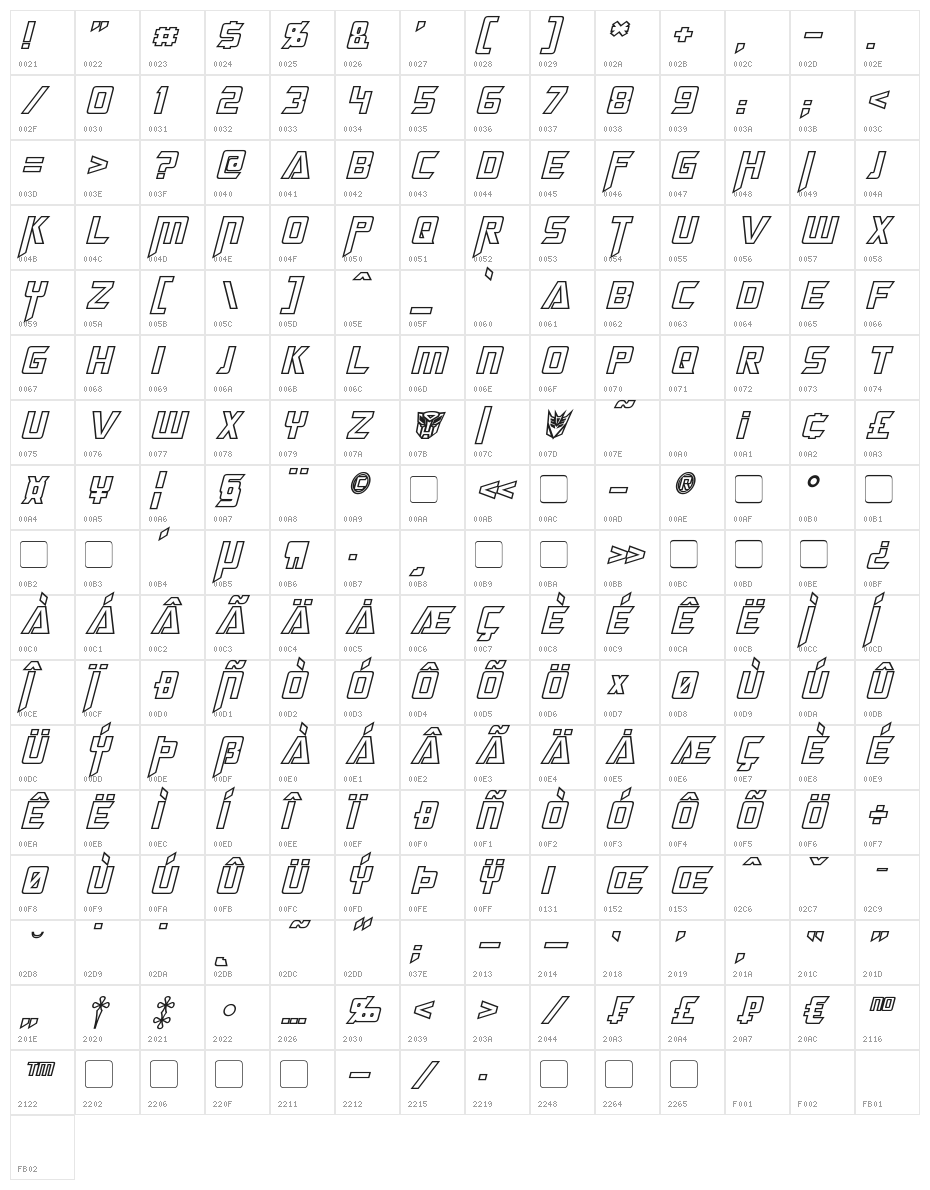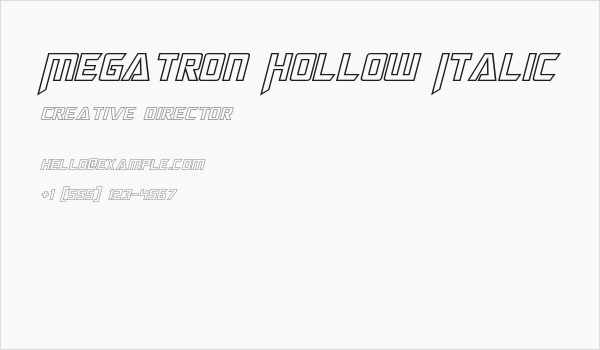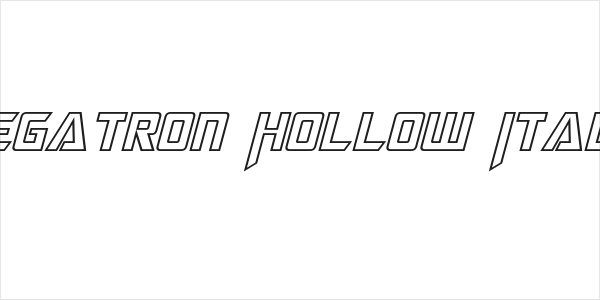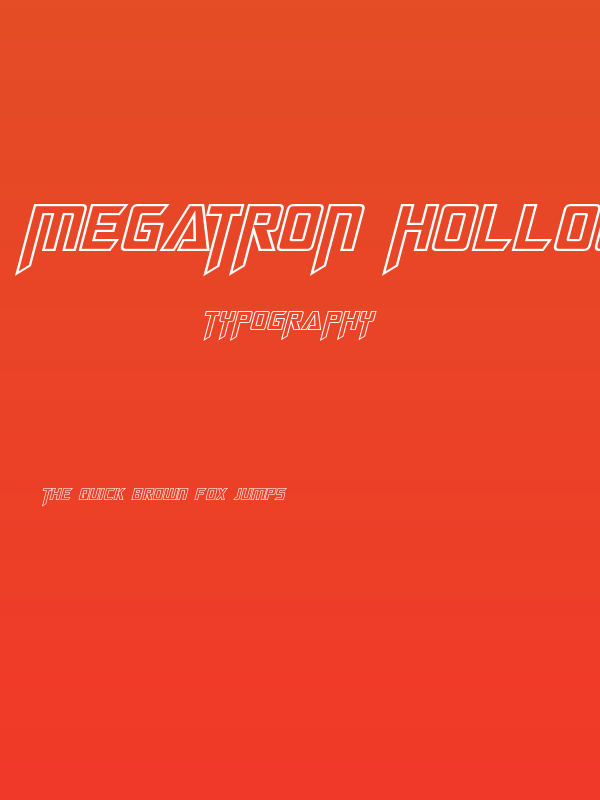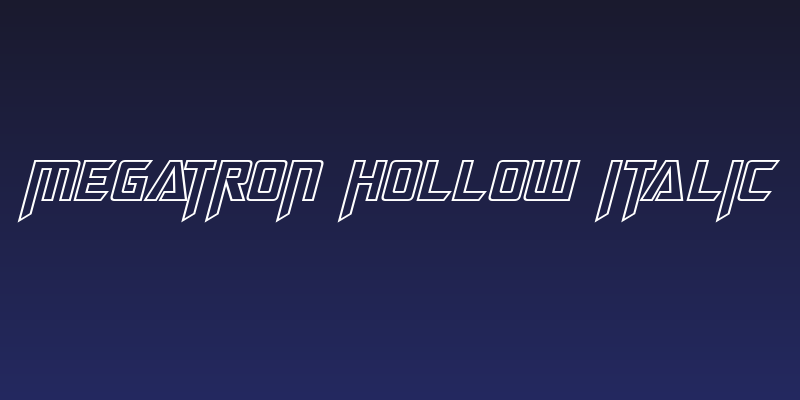
Megatron Hollow Italic Font
Megatron Hollow Italic Description
This font features a bold, futuristic design with a hollow, outlined style that gives it a striking and dynamic appearance. The italicized slant adds a sense of motion and energy, making it ideal for projects that require a modern and edgy look. The characters are angular and geometric, with sharp edges and a consistent stroke width that enhances its boldness. The uppercase and lowercase letters maintain a uniform style, while the numbers and special characters complement the overall aesthetic. This font is perfect for creating impactful headlines, logos, and branding materials that need to stand out.
| Proposed Projects | Ideal for futuristic branding, sci-fi themed projects, video game titles, and dynamic posters. |